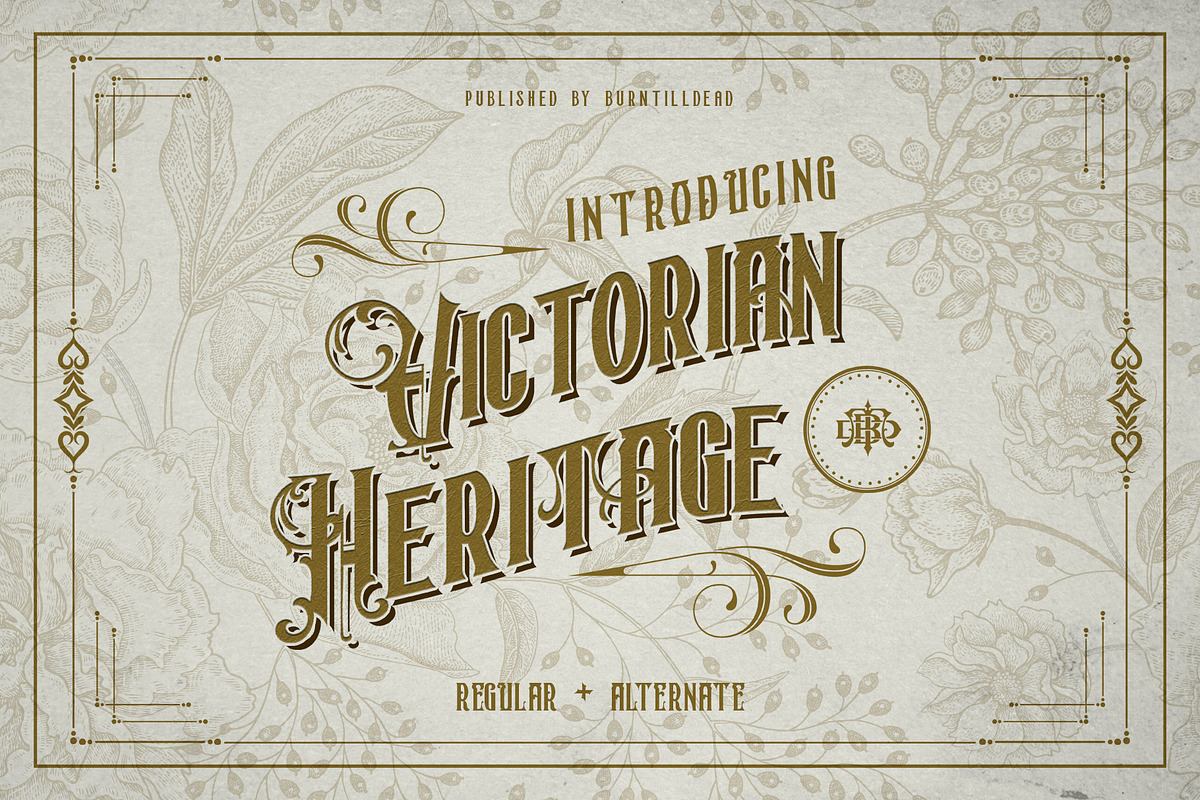
Victorian Heritage Font Free Download is a timeless and elegant typeface that brings the charm and sophistication of the Victorian era to your designs. With its intricate details, decorative flourishes, and classic serif style, this font is perfect for creating vintage-inspired logos, invitations, branding materials, and other high-end projects. The elegant curves and ornate character set make it ideal for historical, luxury, or heritage-focused designs. Whether you're designing for a classic brand, a vintage event, or an upscale product, Victorian Heritage Font Free Download offers a refined and unique style to your creative projects. Experiment with its ornate beauty in personal projects before purchasing a commercial license and elevate your designs with this beautifully crafted Victorian-inspired font.